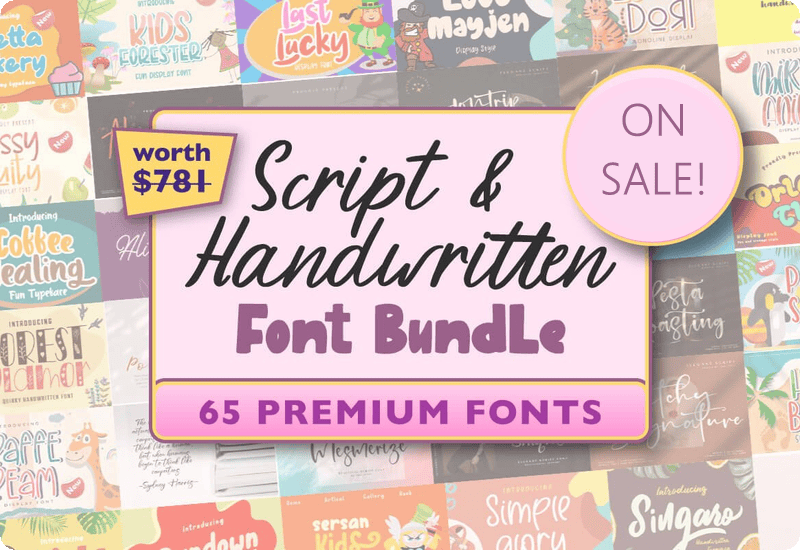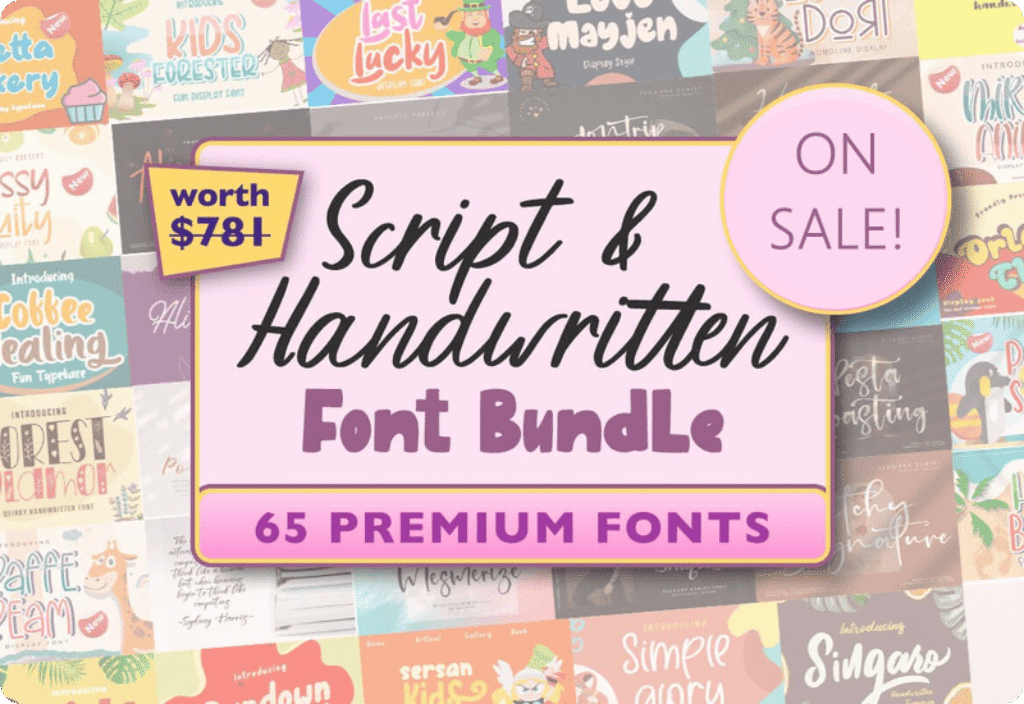
A Complete Typeface Collection for Every Creative Project
Take your design projects to the next level with this comprehensive Handwritten Font Bundle, packed with 65 premium script and display fonts. Valued at $781, this professional-grade collection offers fonts for virtually every type of creative project—ranging from DIY crafts and handmade cards to professional branding, wedding invitations, social media graphics, and more.
Designed for Creativity Across All Media
Whether you’re cutting vinyl with Cricut or Silhouette, designing invitations in Canva, or creating standout book covers in Adobe InDesign, these fonts were built to perform in a wide variety of applications. The collection features everything from elegant signature scripts and quirky kids’ fonts to bold display styles that demand attention.
Each typeface brings its own unique flair to your work, giving you the tools to express emotion, set tone, and create memorable visuals.
Highlights from the Font Bundle
Here’s a closer look at just a few of the 65 fonts included in this expansive bundle:
- Glittics Script: A flowing handwritten font packed with stylistic alternates, swashes, and ligatures. Ideal for branding and stationery.
- Especially Script: A modern calligraphy font with smooth lines and a graceful touch—perfect for wedding designs.
- Magnum Smith: A masculine, bold script that balances rugged charm with vintage elegance.
- Giraffe Dream: A playful caligraphic style perfect for children’s projects and greeting cards.
- Alice Roman: A romantic serif with elegant details, great for book covers or high-end packaging.
- Coffee Healing: A fun display font with cafe vibes, ideal for lifestyle blogs and product labels.
- Super Tramp & Xoana Rush: Bold, experimental fonts suited for posters, headlines, and standout design pieces.